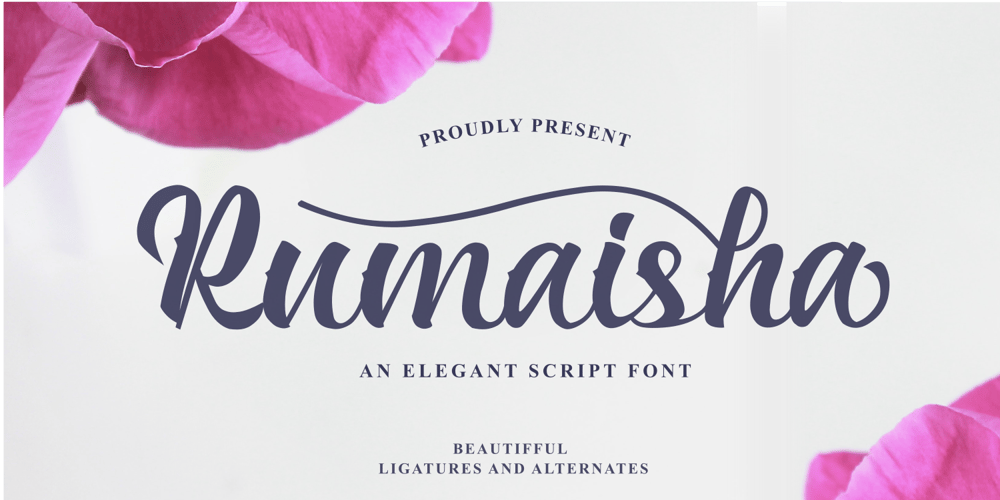
Rumaisha Font Family was designed by Zeenesia Studio and published by Zeenesia Studio. Rumaisha contains 1 styles and family package options. Proudly Present, Rumaisha Script Font.Rumaisha is an Elegant Calligraphy Font.Rumaisha is perfect for product packaging, branding project, megazine, social media, wedding, or just used to express words above the background.Rumaisha also multilingual support, and you get extras ligature and more alternateEnjoy the font!